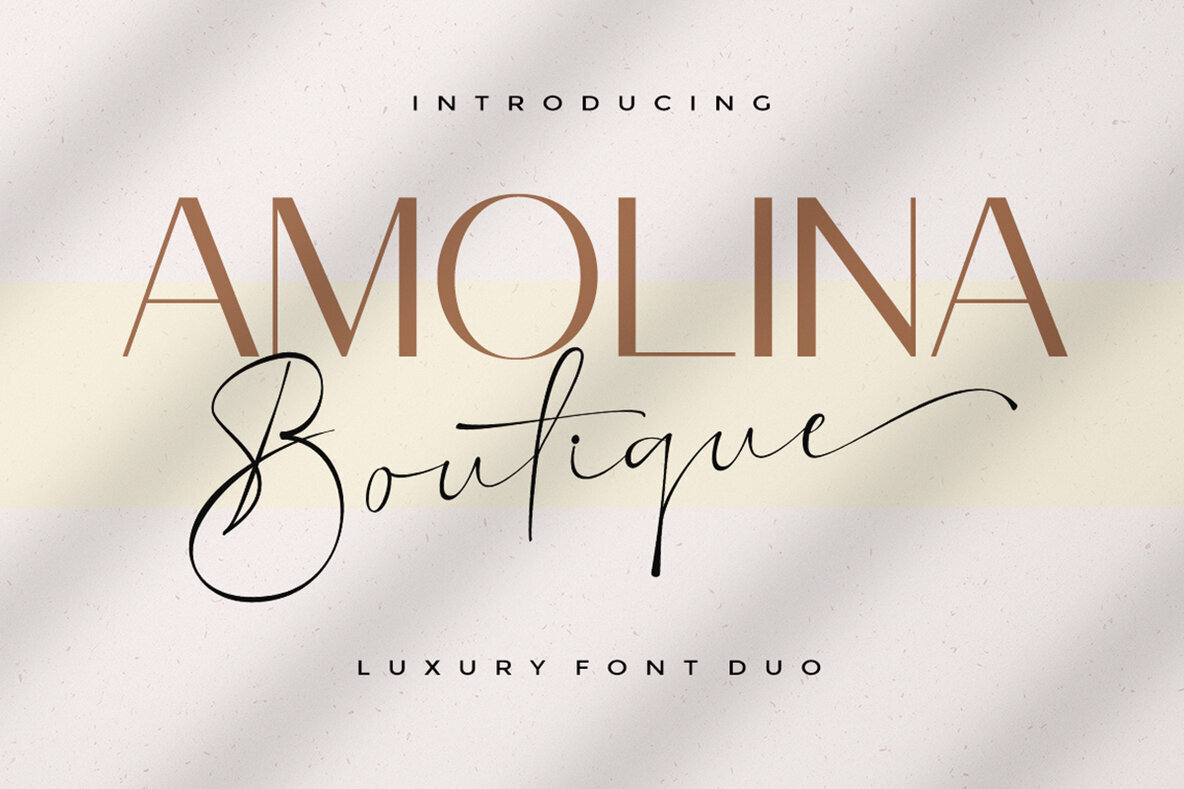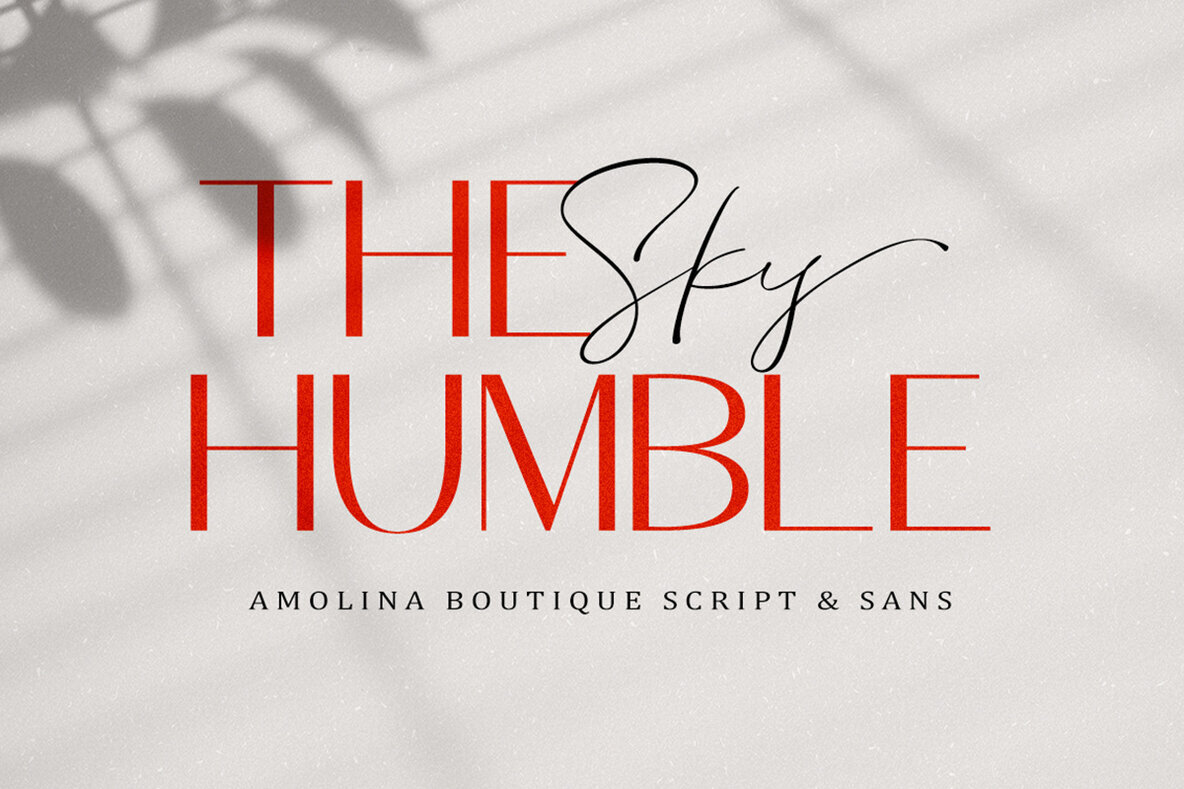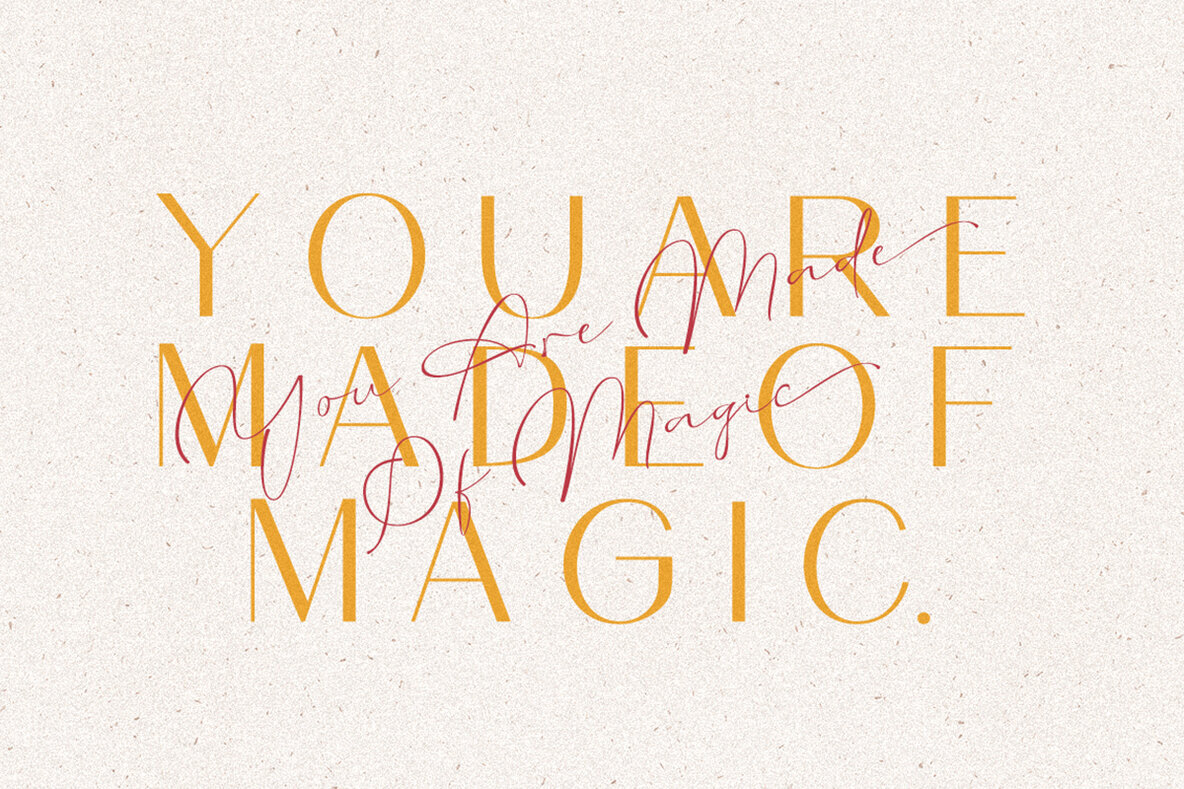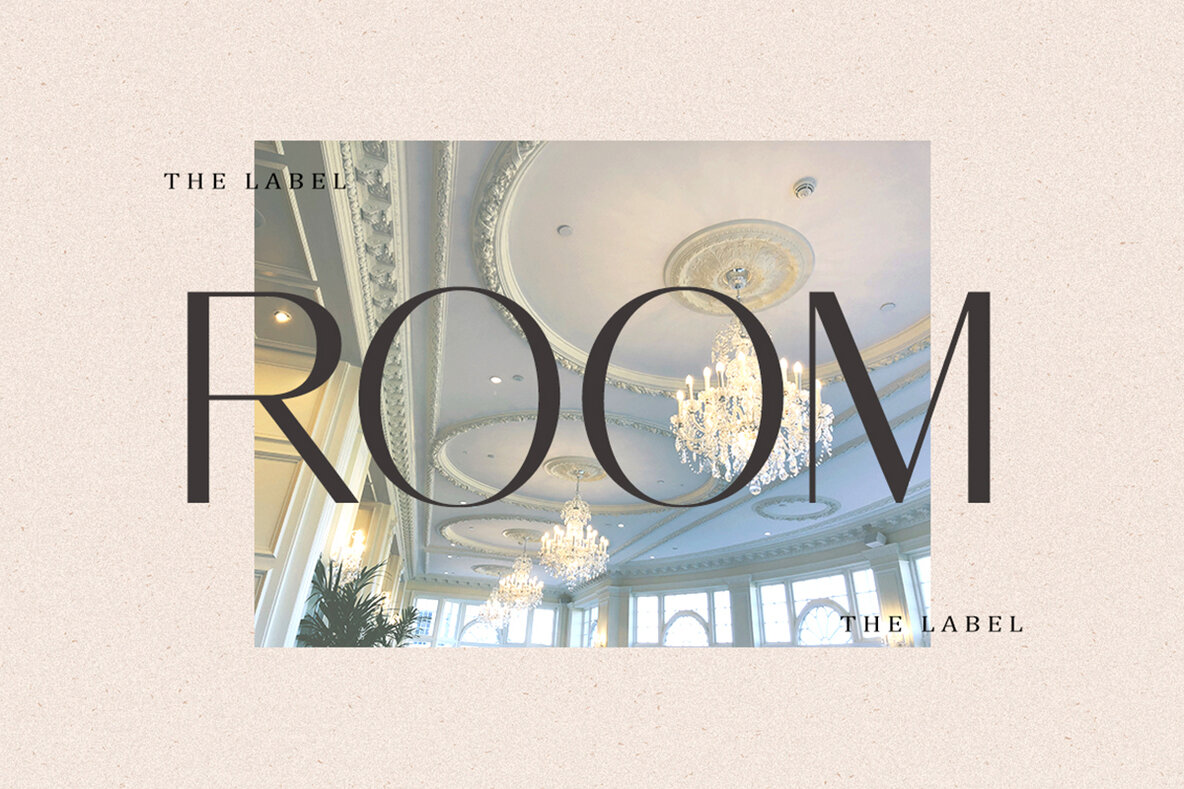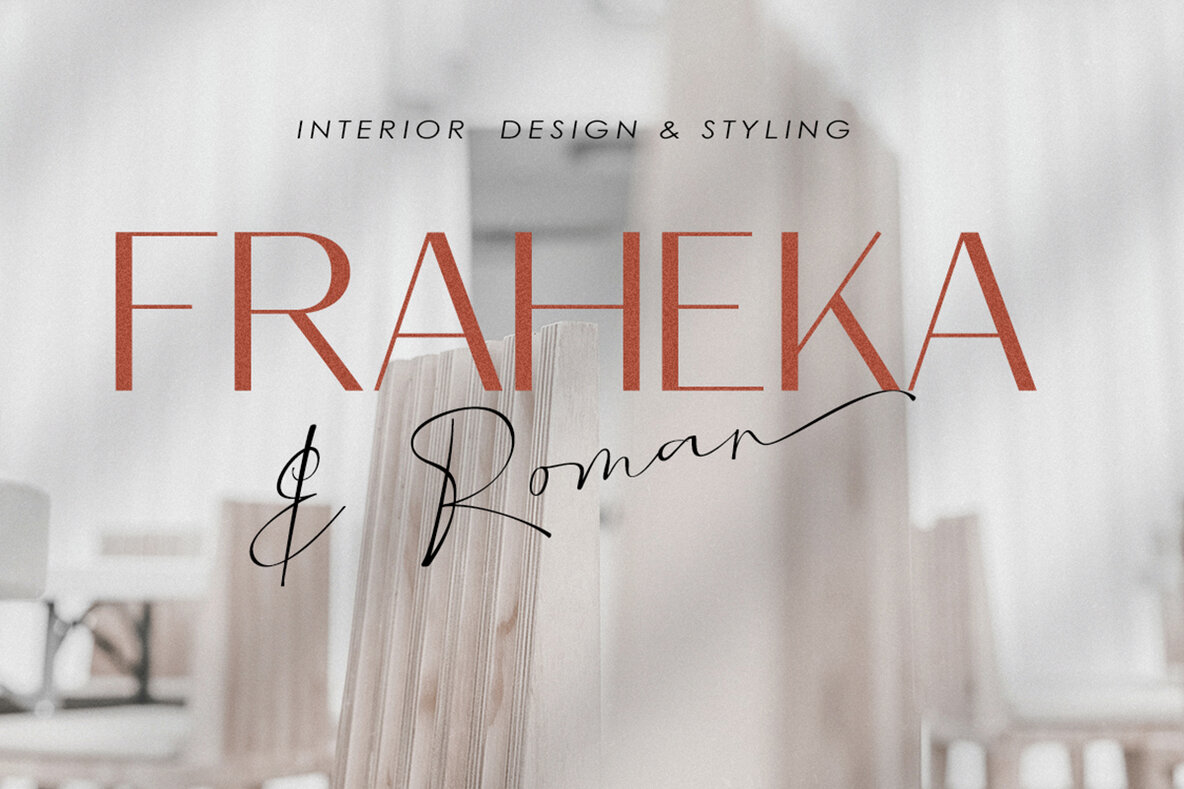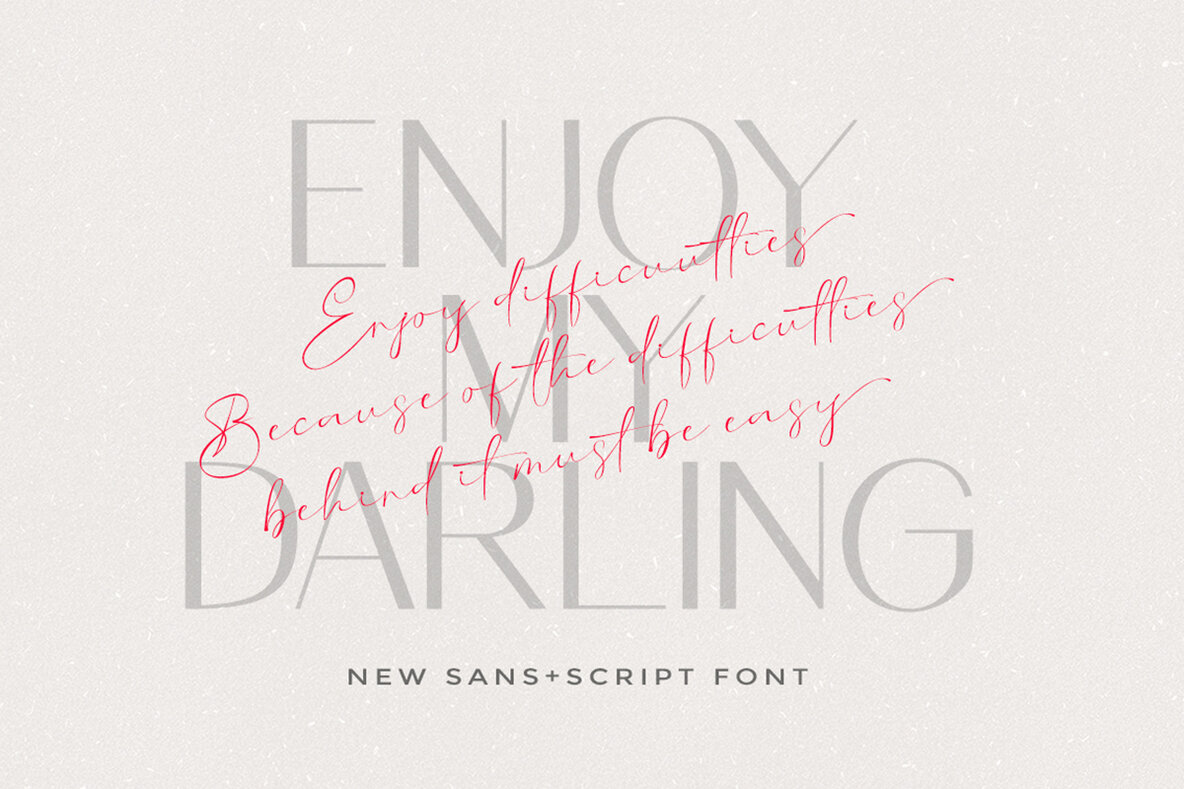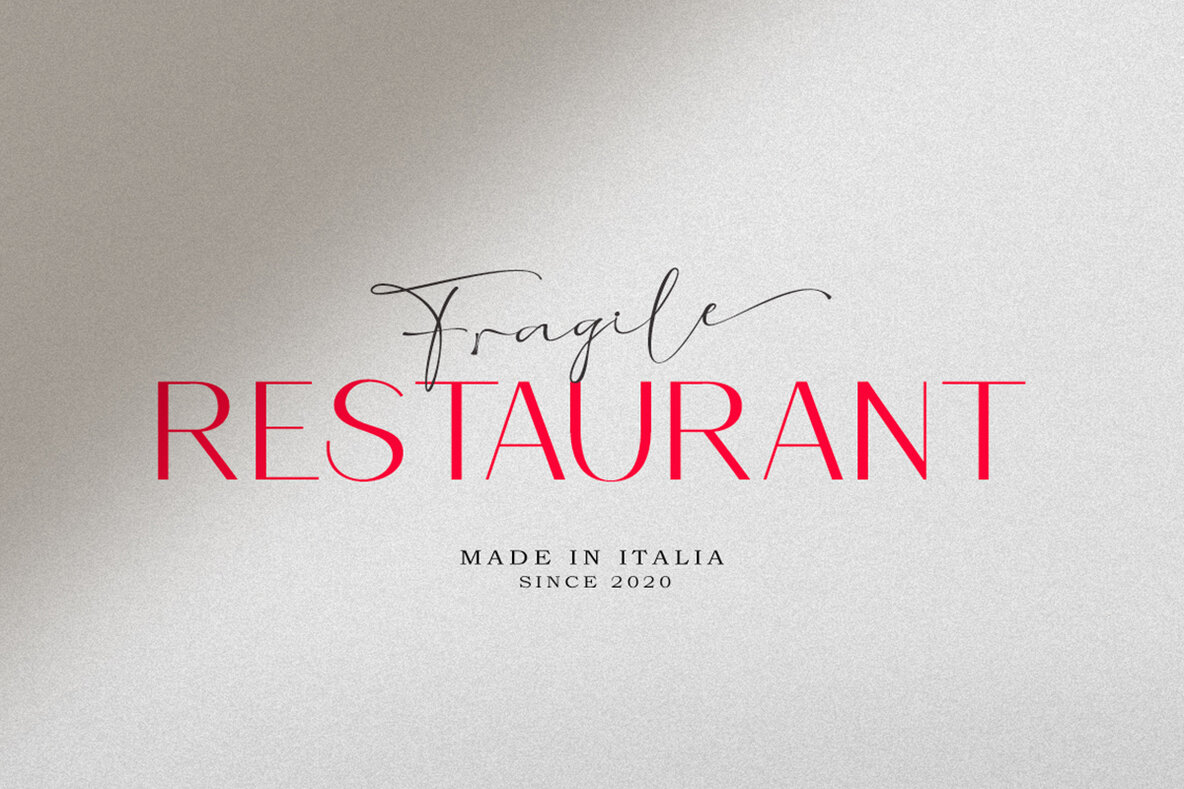
Amolina Boutique Font
Discover the elegance and sophistication of Amolina Boutique, a luxury font duo designed to elevate your design projects. Combining the sleekness of sans serif with the charm of signature style, this hand display font duo is perfect for a wide range of applications. Whether you're crafting logos, labels, or packaging designs, or working on blog titles, posters, wedding designs, and social media posts, Amolina Boutique has you covered. Ideal for art quotes, home decor, book covers, and more, it seamlessly integrates into any design vision. Amolina Boutique is designed to meet the needs of an international audience, offering comprehensive language support including English, French, Italian, Spanish, and more. With its versatile style and seamless integration, this font duo is a must-have for designers seeking elegance and functionality in every project.Amolina Boutique Font Duo